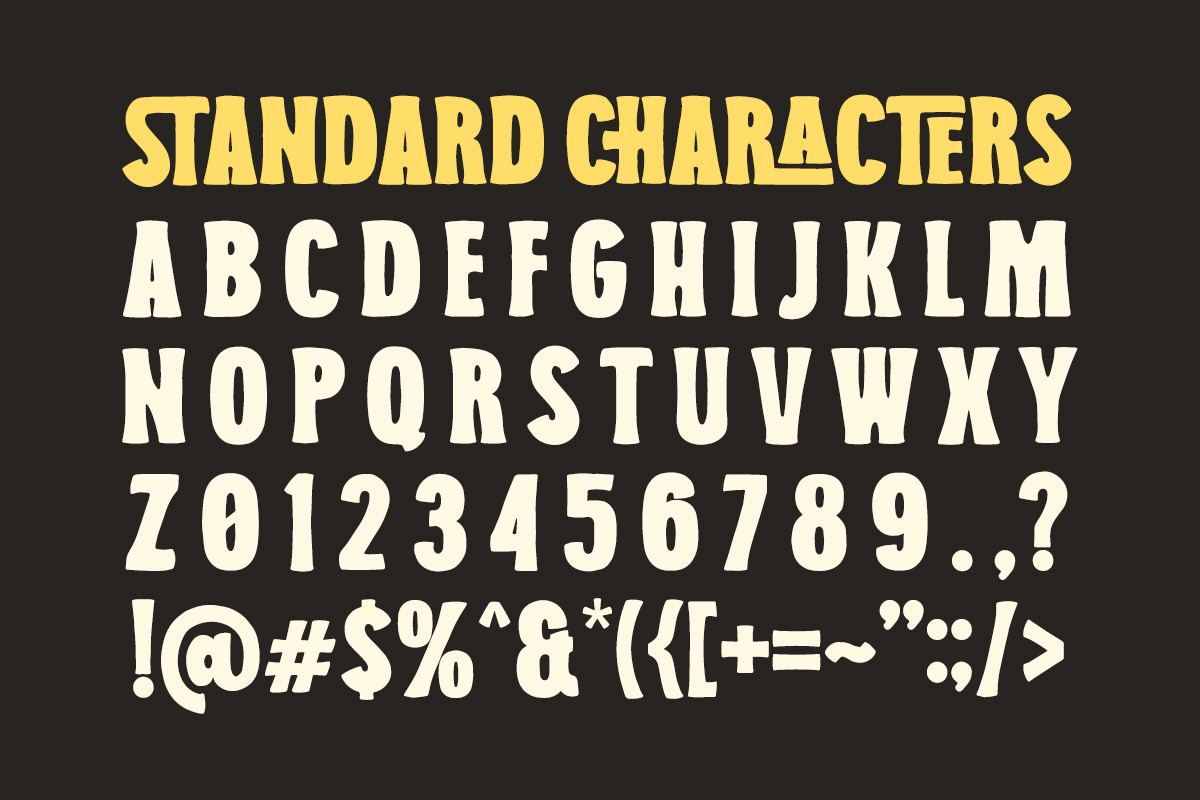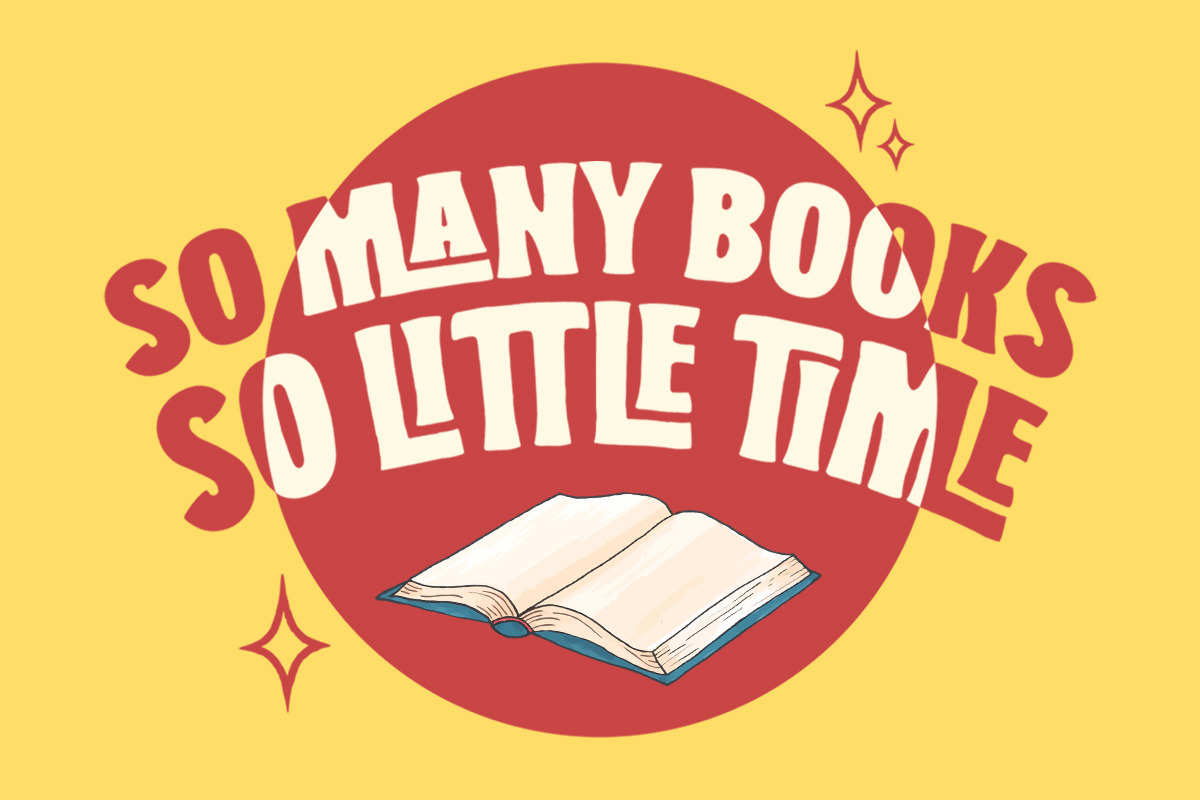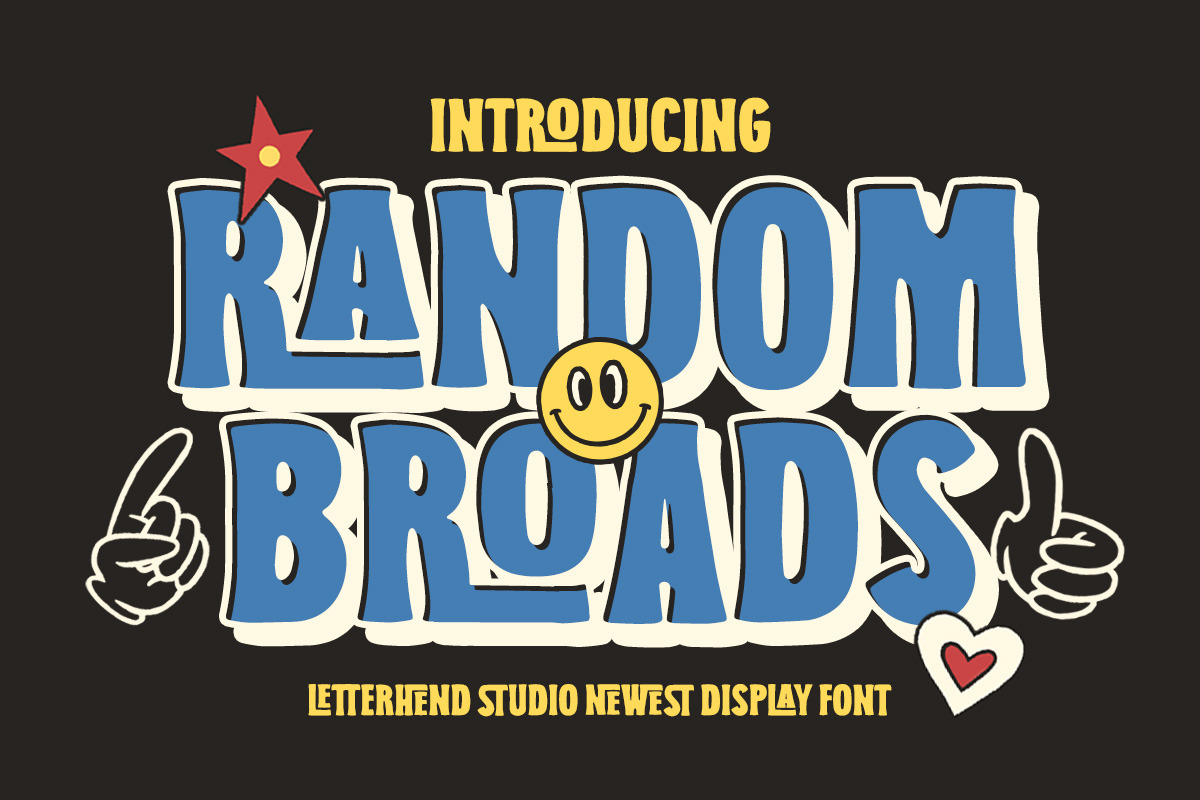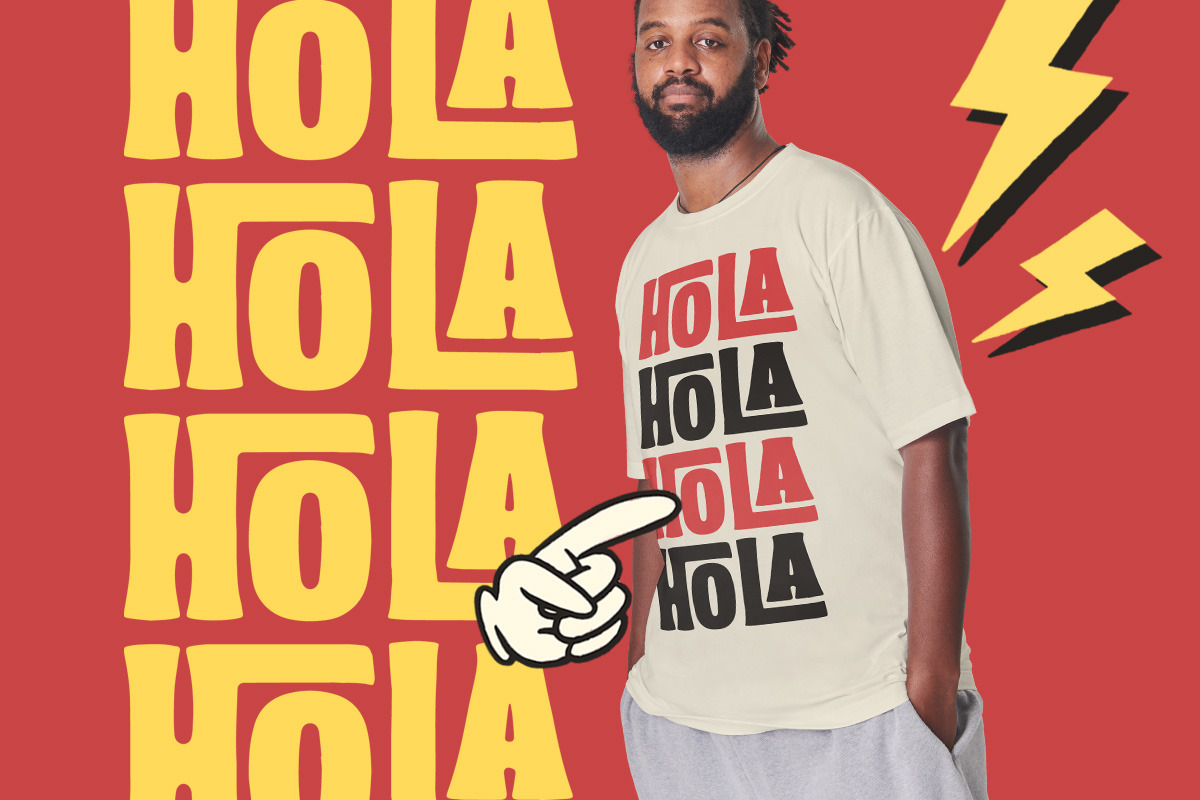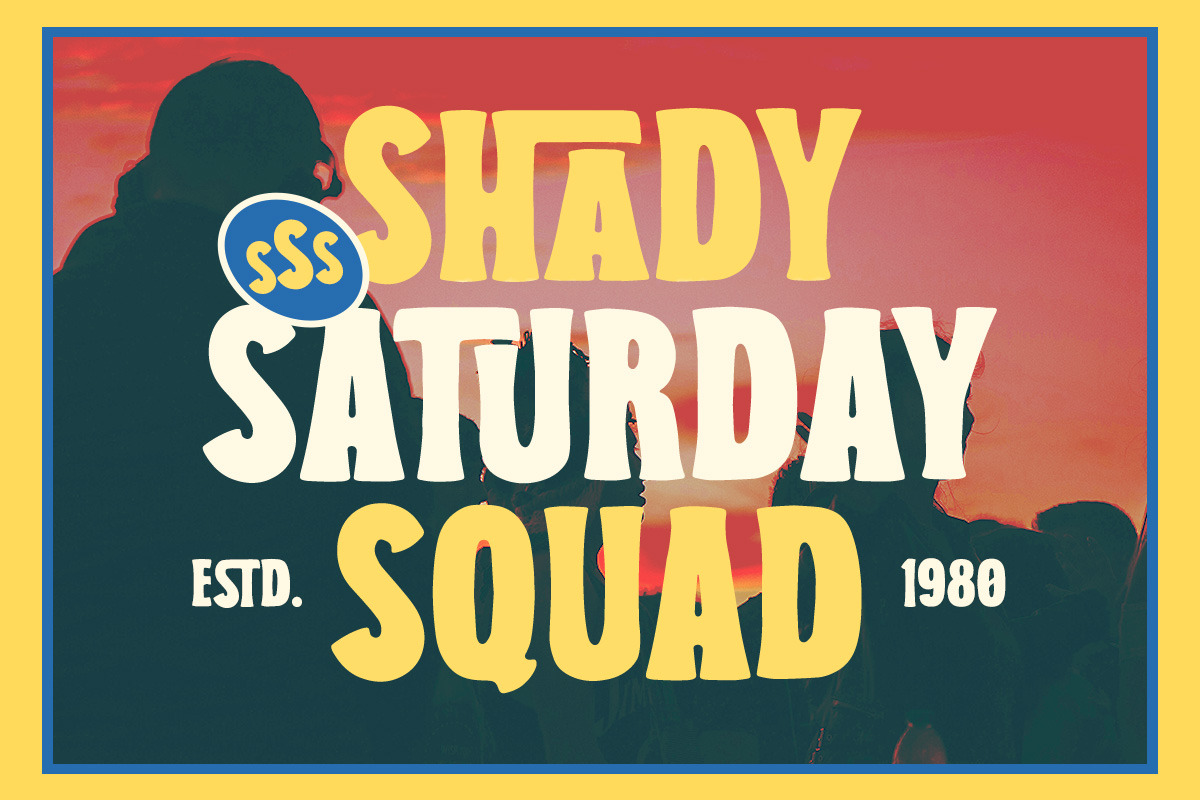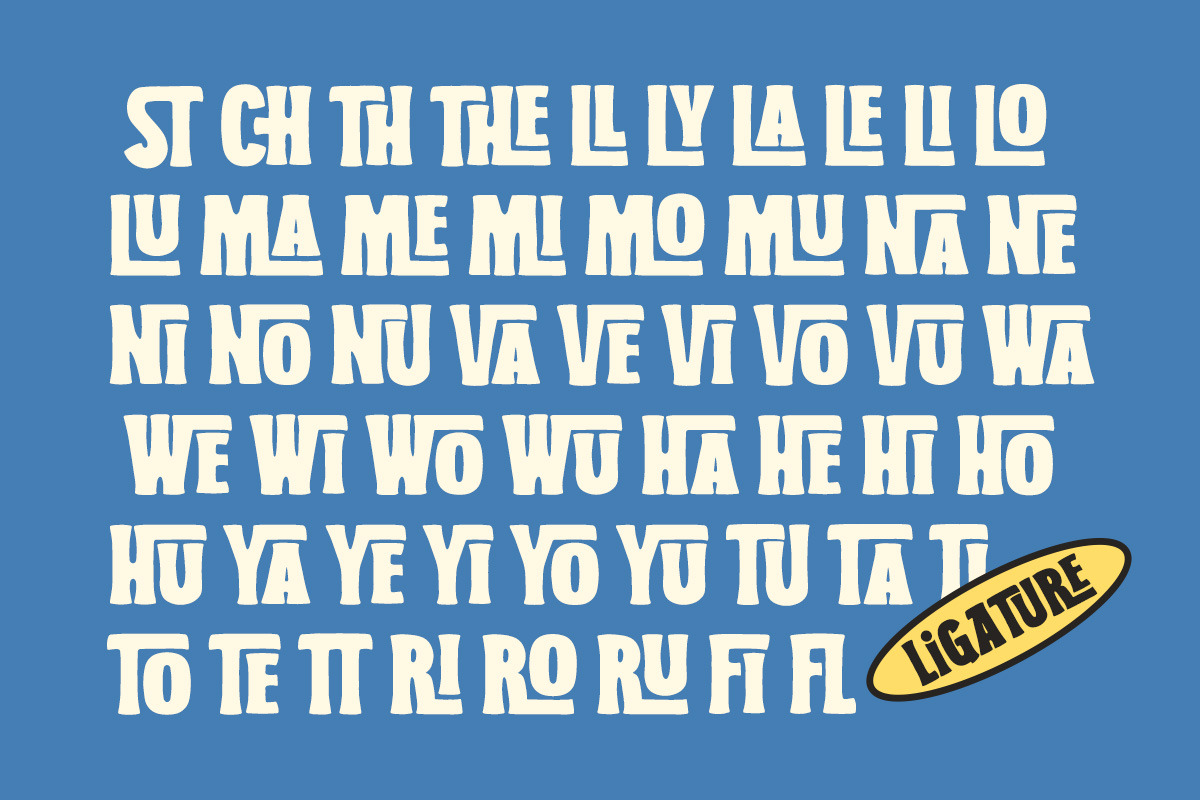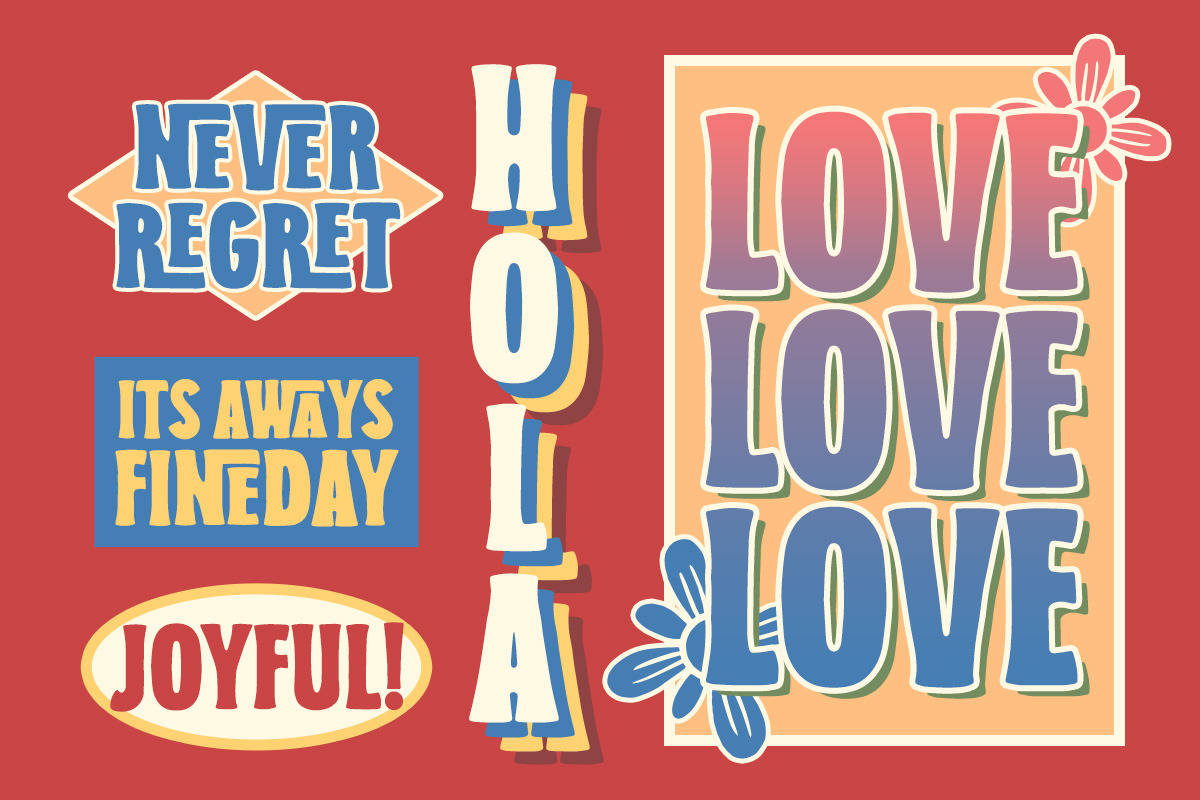
Random Broads Ligature Font
Random Broads is a ligature display font with playful looks. It comes with retro illustration bonus. This type of font perfectly made to be applied especially in storybook children or child theme which is need a standout font, and the other various formal forms such as invitations, labels, logos, magazines, books, greeting / wedding cards, packaging, fashion, make up, stationery, novels, labels or any type of advertising purpose.